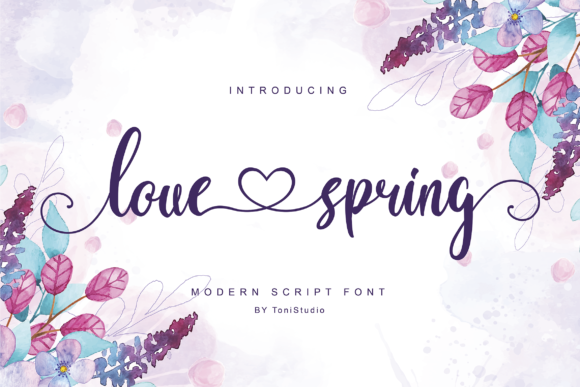
Introducing Love Spring Font, the charming and irresistible script font that's perfect for adding a touch of love and romance to your creative projects. Picture this: you're creating a wedding invitation, and you want the font to reflect the joy and excitement of the occasion. Love Spring Font will effortlessly elevate your invitation with its heartfelt and playful style, leaving a lasting impression on your guests.
Or perhaps you're working on a stationary art project, and you want the font to capture the essence of your message. Love Spring Font will lend its authentic and enchanting touch, making your art truly captivating. Its handwritten feel gives it a personal touch that will resonate with your audience.
Step into the world of social media with Love Spring Font, and watch your posts come alive with eye-catching charm. The font's delicate strokes and heart-themed glyphs will make your content stand out in the digital realm. Create posts that capture your followers' attention and make them feel the love.
And let's not forget the joy of sending greeting cards to loved ones. With Love Spring Font, your cards will carry a message of warmth and affection. The font's playful ligatures and alternate glyphs will add a touch of whimsy, transforming your cards into cherished keepsakes.
So why settle for ordinary fonts when you can have Love Spring Font, the font that sparks love and delight? Access all the heart-themed glyphs and swashes with ease thanks to its PUA encoding. Embrace the wealth of special features, including alternate glyphs and ligatures, and let your creativity flourish.
Love Spring Font is more than just a font; it's an expression of love, joy, and heartfelt connection. Download it today and let your projects bloom with romance and charm.